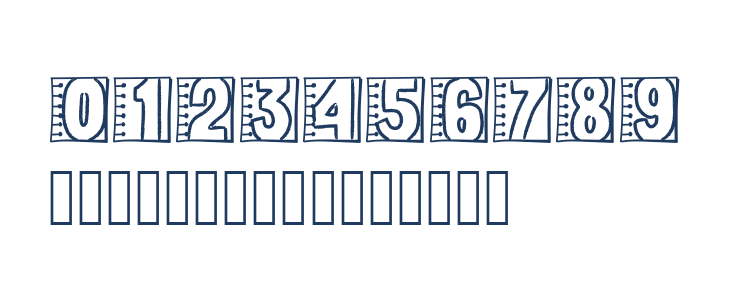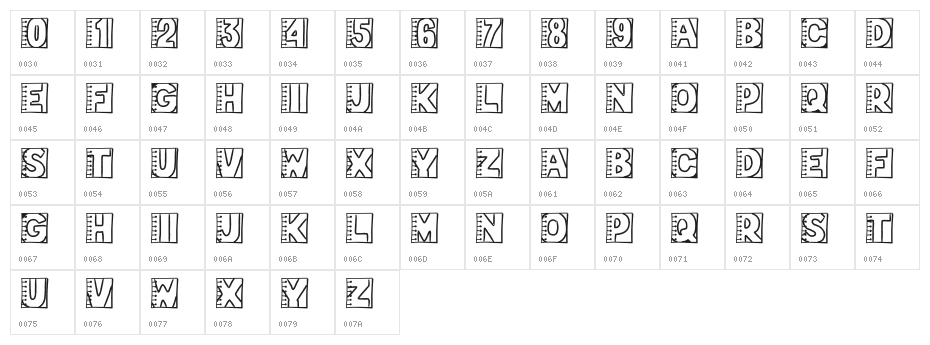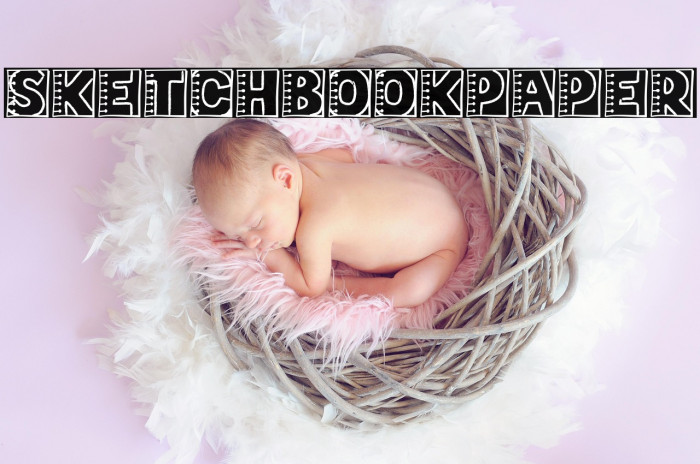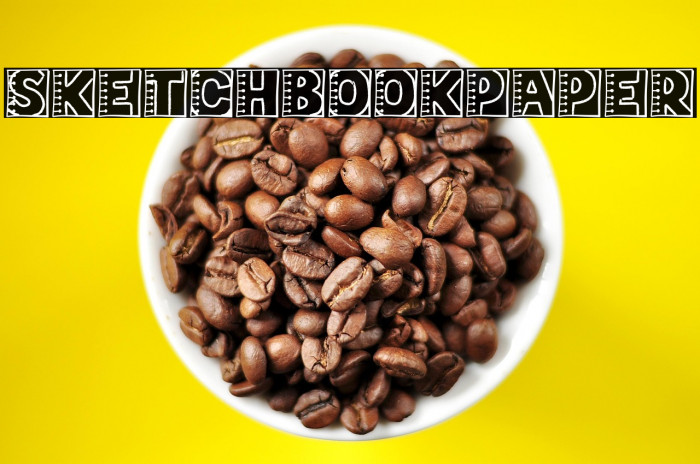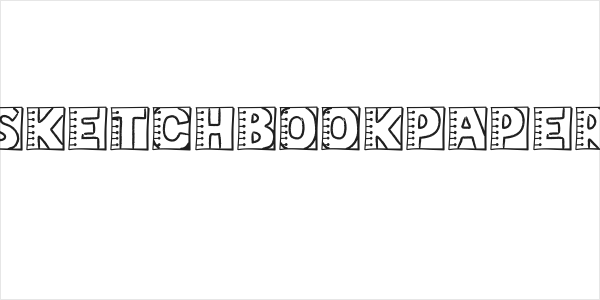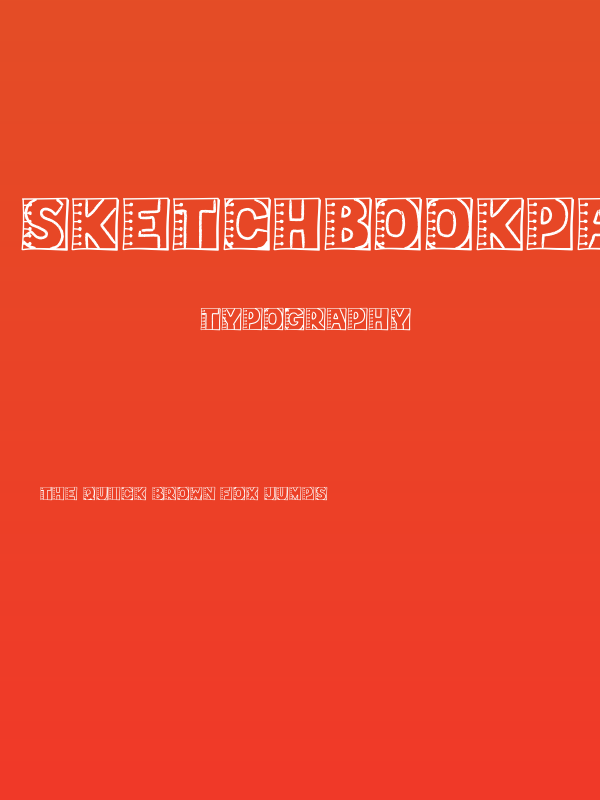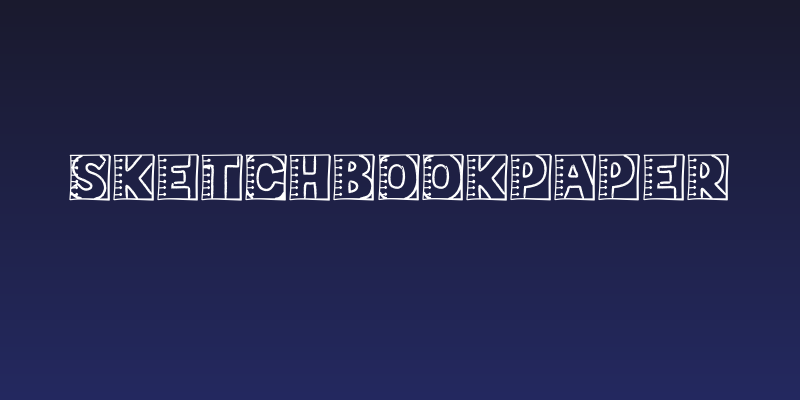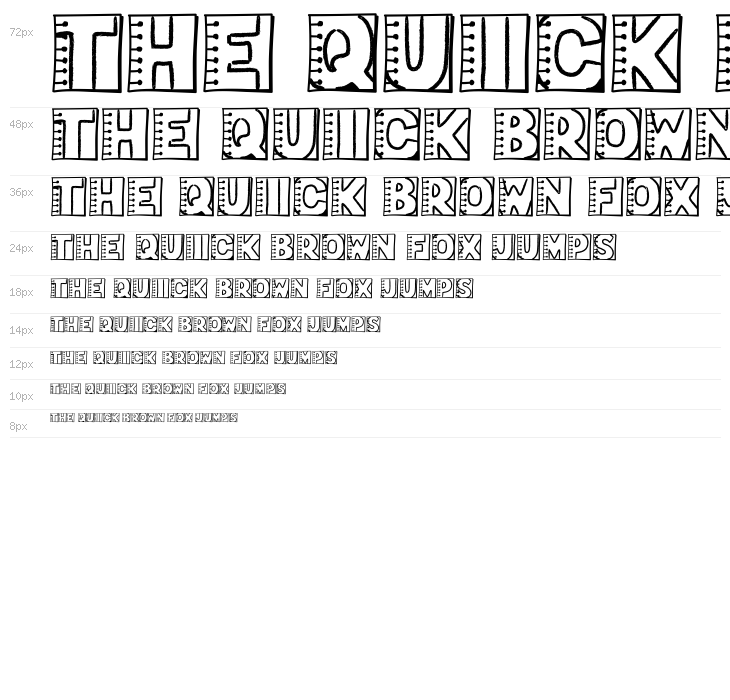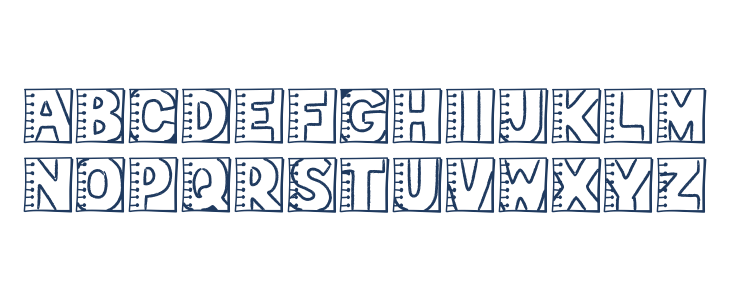
SketchbookPaper Font
SketchbookPaper Description
This font features a playful and artistic design, reminiscent of hand-drawn sketches on paper. Each character is enclosed within a rectangular frame, adding a unique boxed effect. The letters and numbers are bold and have a whimsical, doodle-like quality, with irregular lines and decorative elements such as dots and stripes. This style gives the font a lively and informal appearance, perfect for creative projects that require a touch of fun and imagination. The overall aesthetic is both quirky and approachable, making it suitable for a variety of uses where a casual and artistic vibe is desired.
| Overall Style | Playful, Artistic |
| Use Case | Headlines, Posters, Creative Projects |
| Proposed Projects | Ideal for children's books, comic strips, playful branding, and creative posters. |